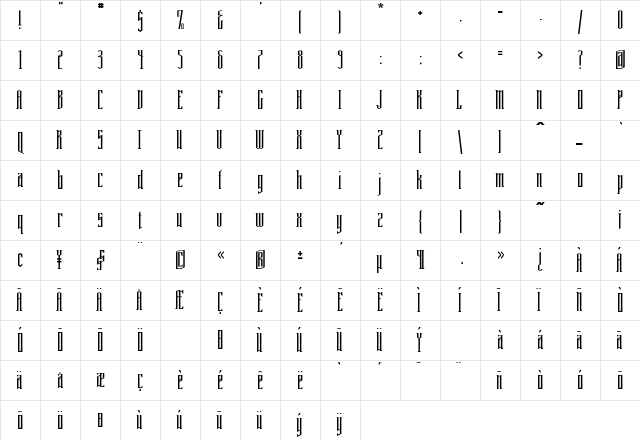
PlanetThreeHundred Regular
Design Context for PlanetThreeHundred Typeface
PlanetThreeHundred is a composed and adaptable typeface that performs quietly and consistently across a wide range of design contexts.